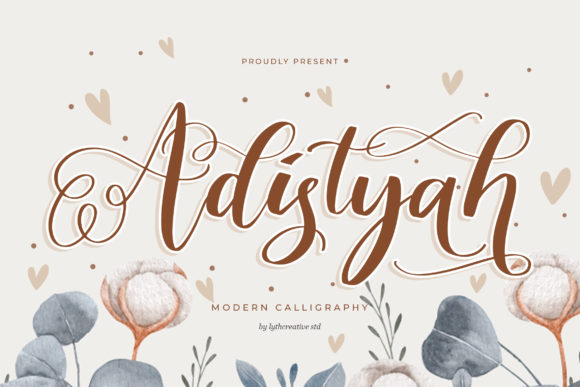
Step into the world of Adistyah Font - where elegance and grace intertwine to create a symphony of visual delight. The perfect font for script tattoos, Adistyah exudes a raw, authentic charm that will leave you spellbound. Dive into the depths of creativity and let your imagination soar with this remarkable handwritten font.
Crafted with the utmost care and attention to detail, Adistyah is more than just a font - it's an art form. Each stroke, each curve, and each line has been meticulously designed to evoke emotion and create a lasting impression. Its delicate yet fresh style effortlessly captures the essence of handwritten beauty, breathing life into your words and designs.
Adistyah's PUA encoding sets it apart from the ordinary, granting you effortless access to a treasure trove of glyphs and swashes. Unleash your creativity and add a touch of exclusivity to your projects, leaving your audience captivated and eager for more. Whether you're a seasoned designer or just starting your creative journey, Adistyah is the perfect companion, guiding you towards typographic excellence.
Experience the joy of seamless creativity as Adistyah seamlessly integrates into your projects, enhancing them with an air of sophistication and timeless allure. Prepare to be captivated by the stunning results as your words transform into captivating artwork, leaving an unforgettable impact on all who behold them.
Don't settle for ordinary fonts - embrace the extraordinary with Adistyah. Its delicate charm and captivating beauty will transform your creative endeavors, leaving you astonished by its transformative power. Seize this opportunity to add Adistyah to your font collection and embark on a journey of typographic excellence.